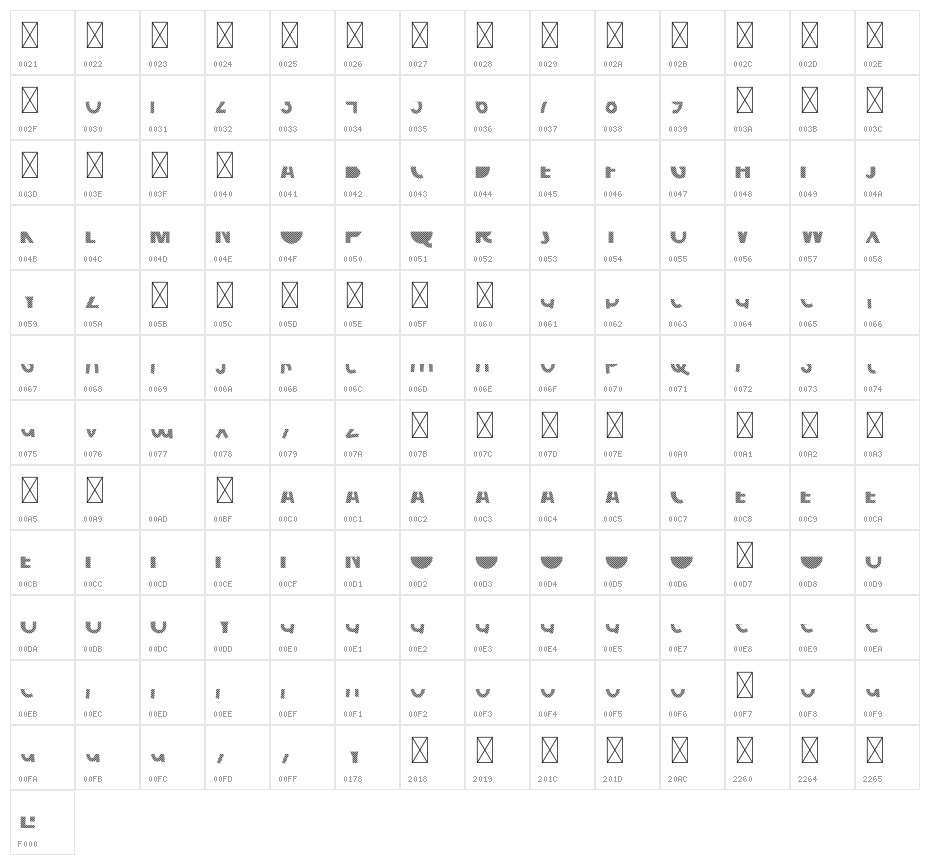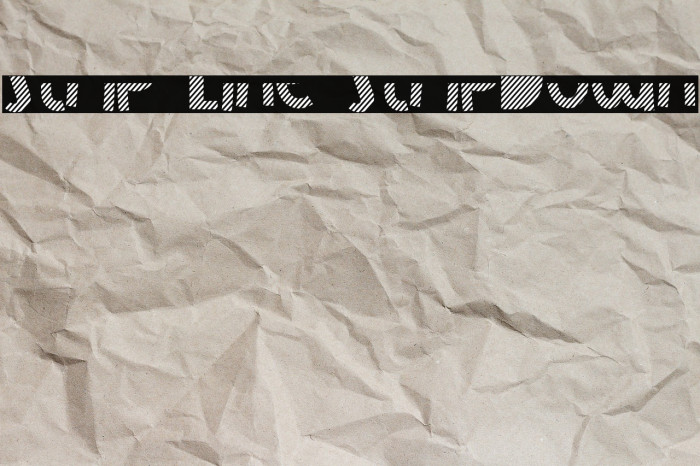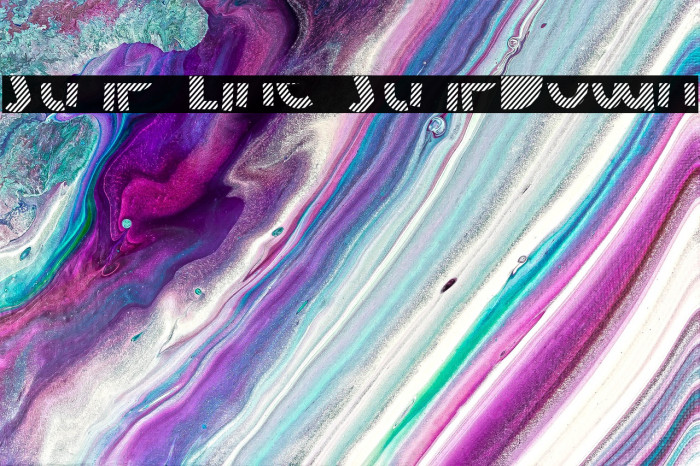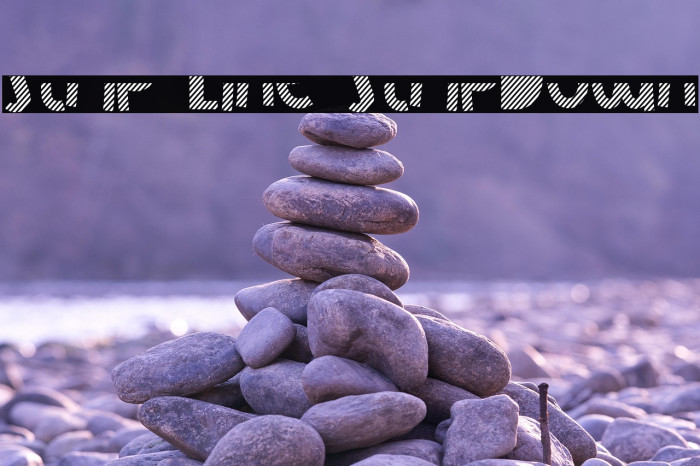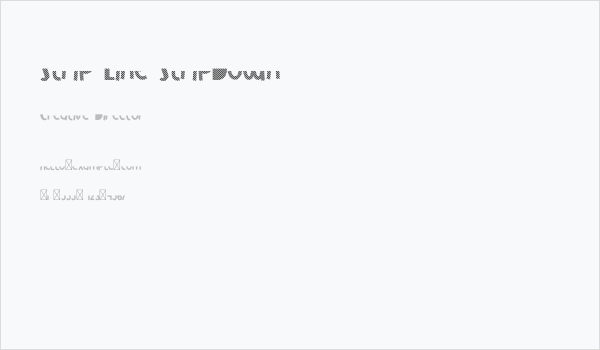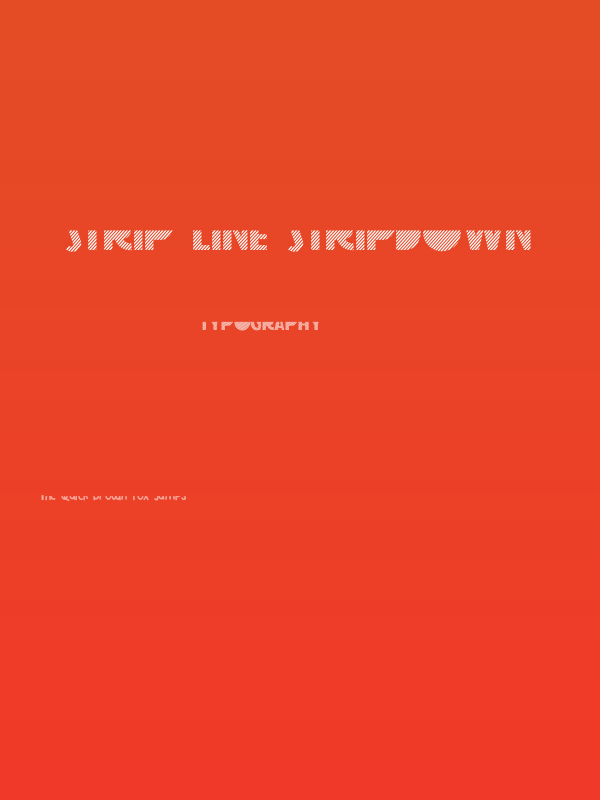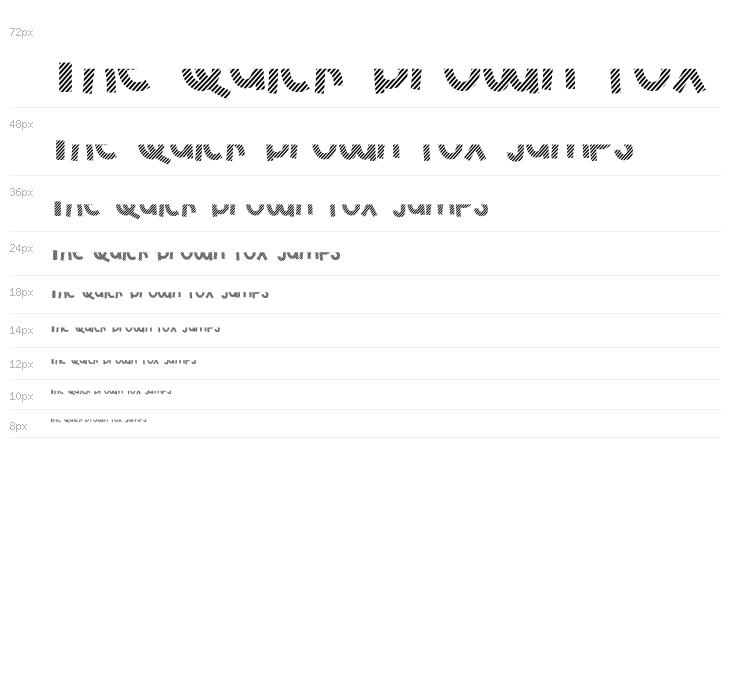
Strip Line StripDown Font
Strip Line StripDown Description
This font features a distinctive design with diagonal striping across each character, creating a dynamic and eye-catching effect. The uppercase and lowercase letters maintain a consistent pattern, giving the font a cohesive look. The numbers and special characters also follow this striped theme, ensuring uniformity across all glyphs. The font's geometric structure and bold lines make it suitable for modern and innovative design projects. Its unique style is ideal for creating standout headlines, posters, and branding materials that require a touch of creativity and flair.